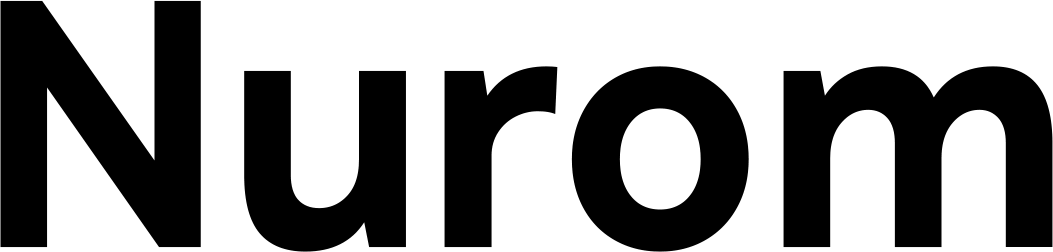
Nurom Font
Using a sans serif font like Nurom can be your game-changer in developing creative content and attracting the audience to your graphic work. This font is very majestic and conveys a sense of friendliness, modernity, professionalism, and dynamic. Nurom can be used in designing logos, engraving wood, and producing billboards, and digital banners.
Nurom is a contemporary sans-serif typeface influenced by the early grotesque style which is neutral and legible in purpose with a fresh personality. The goal wasn’t about historic revival; it was to make a new Grotesk that could compete in an overcrowded market while offering strength, clarity and function across a vast array of applications.
Details include six weights (bold free), a regular italic, and over 400 characters per style. Opentype features include decimal figures, fractions, case sensitive punctuation and language support for Western, South, and Central Europe.